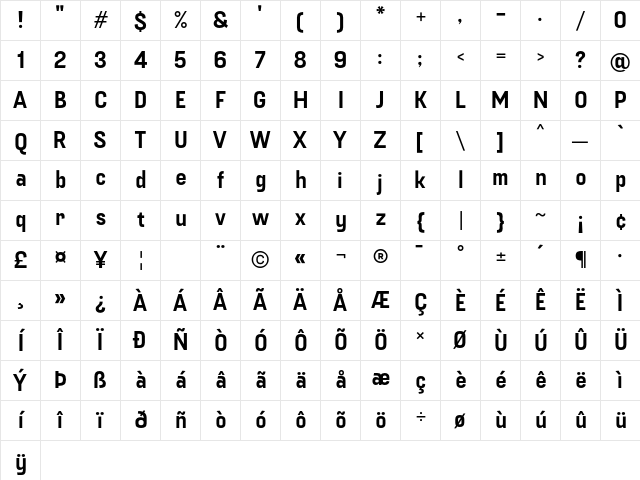
Fuji Regular
Foundry: Pangram Foundry
Designer: Mathieu Desjardins
Fuji Family
Fuji Regular
Design Context for Fuji
Fuji is a composed and adaptable typeface that performs quietly and consistently across a wide range of design contexts.